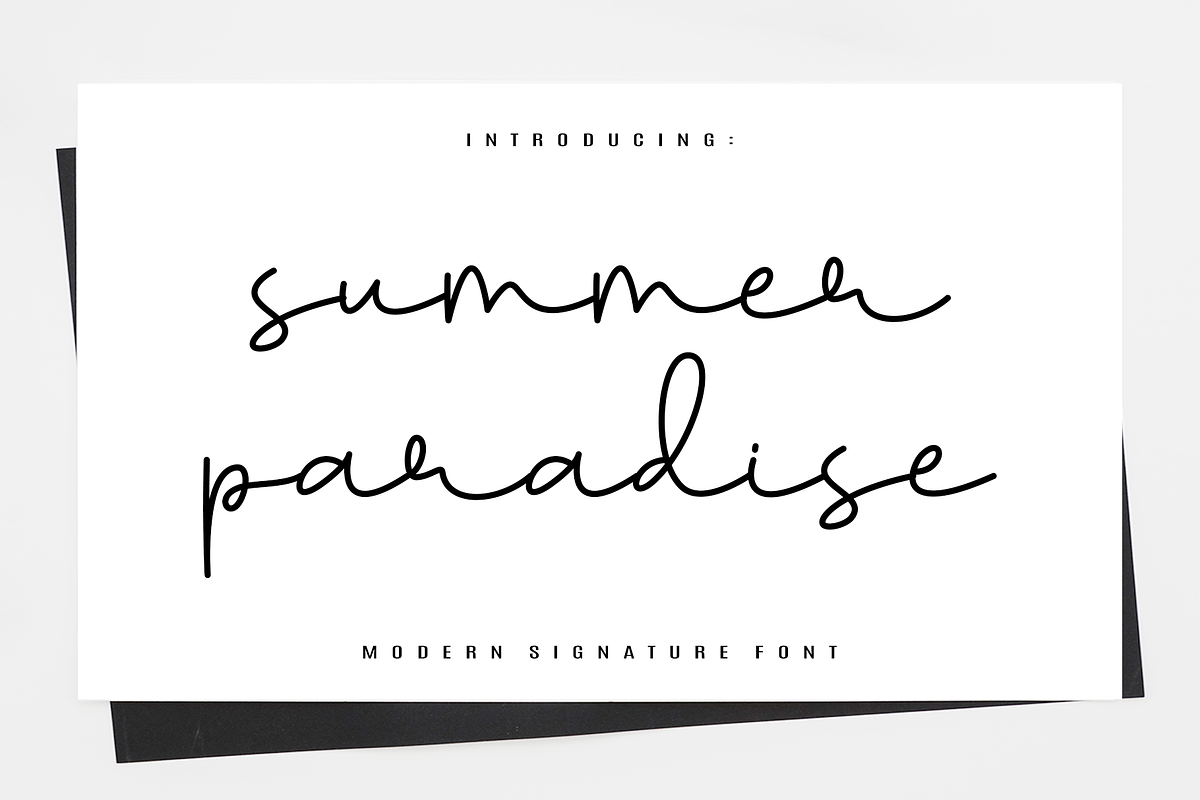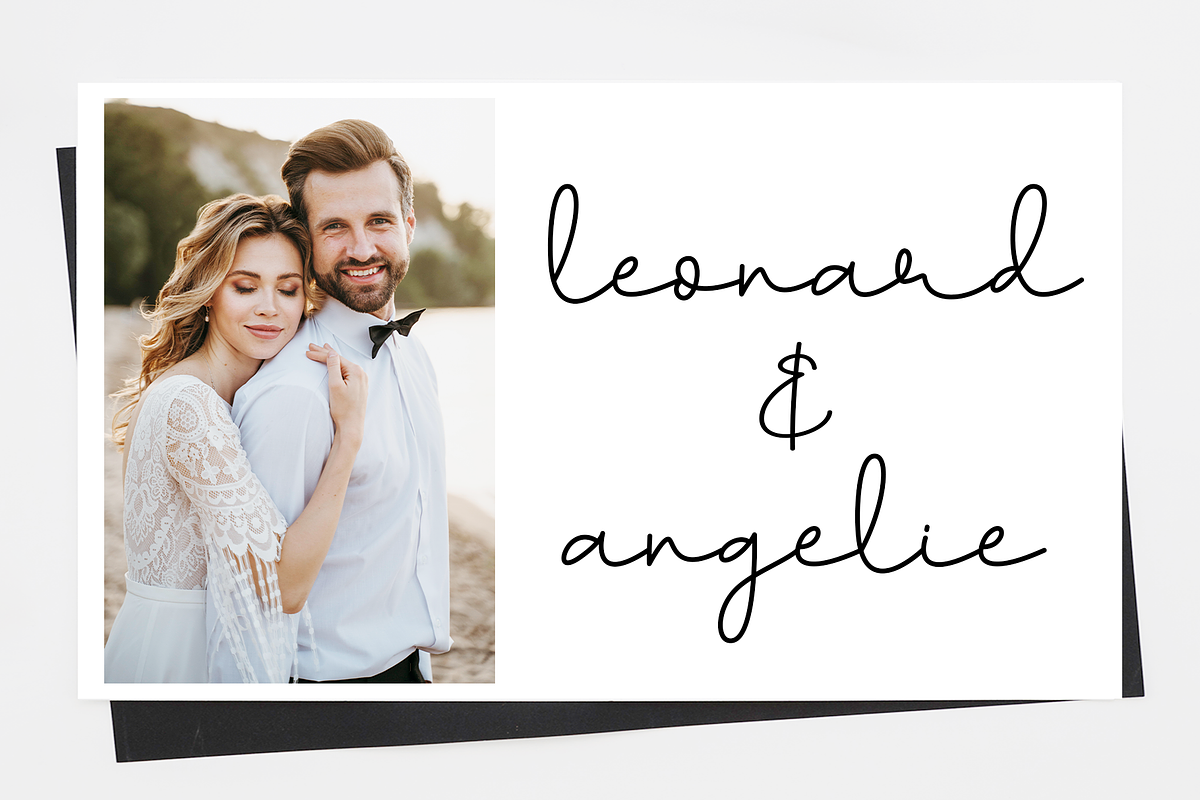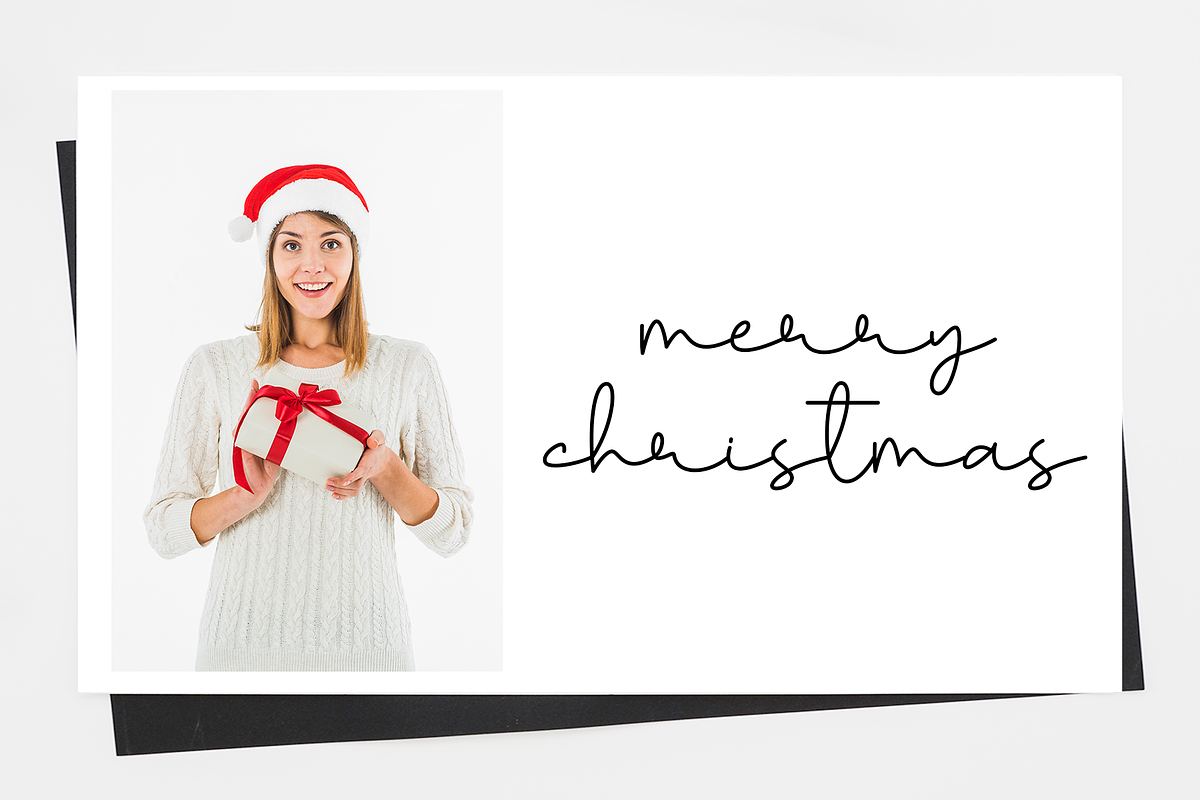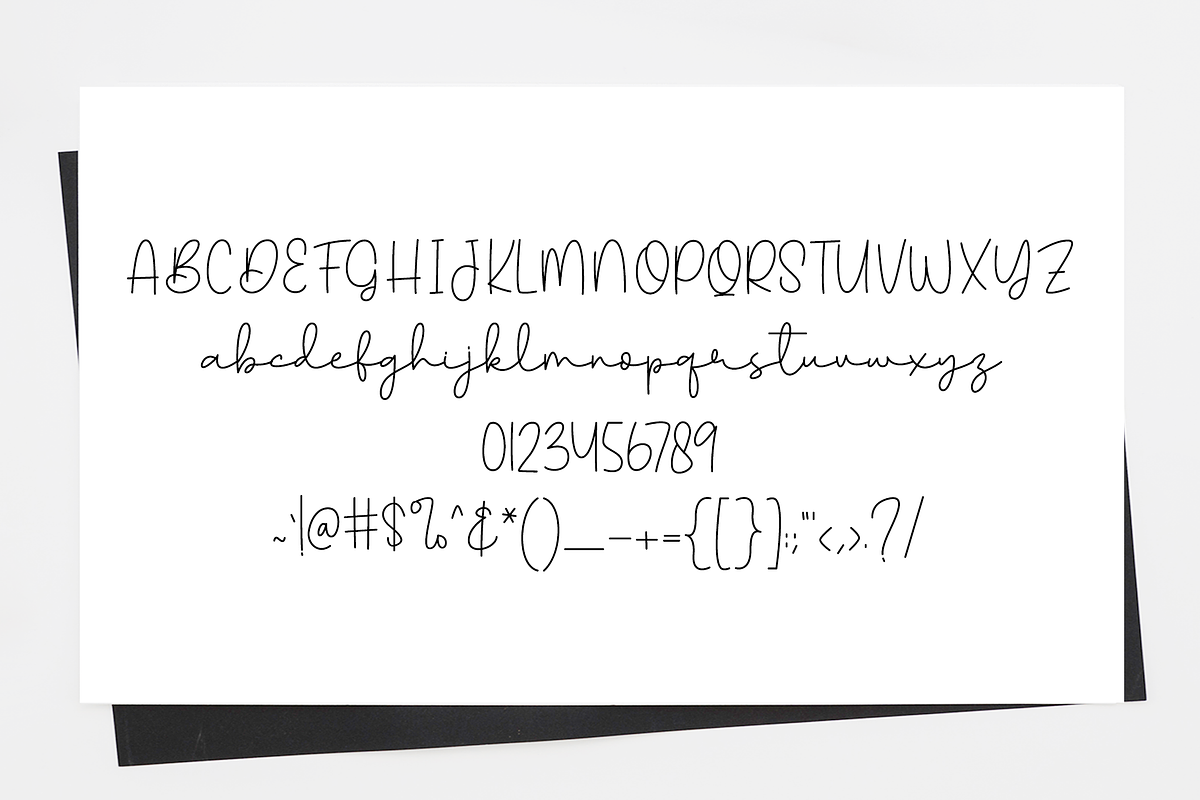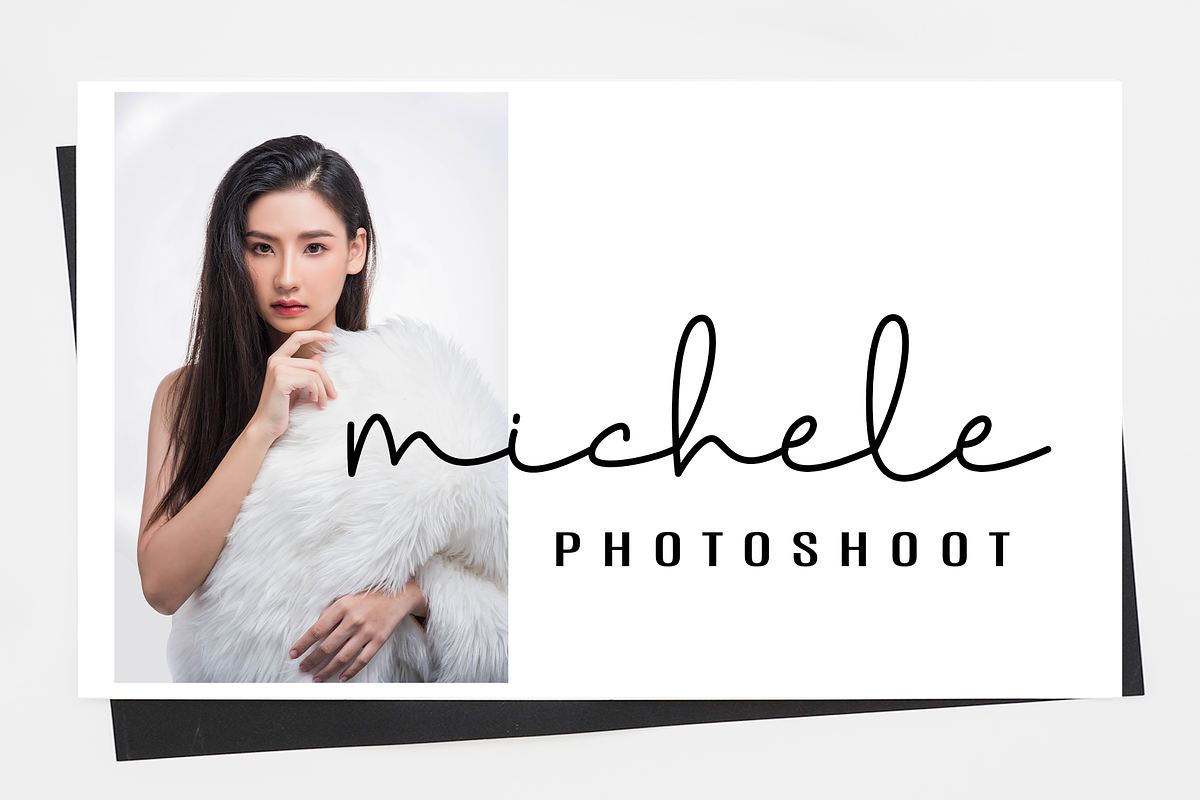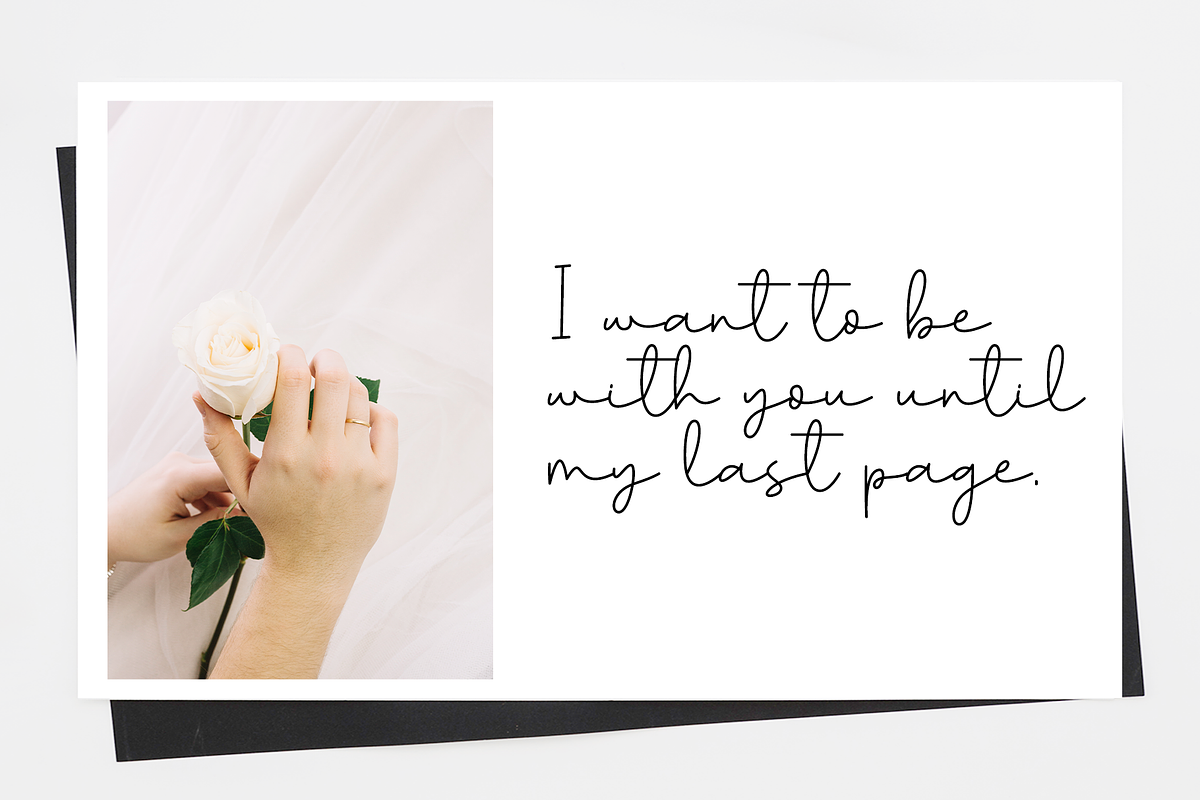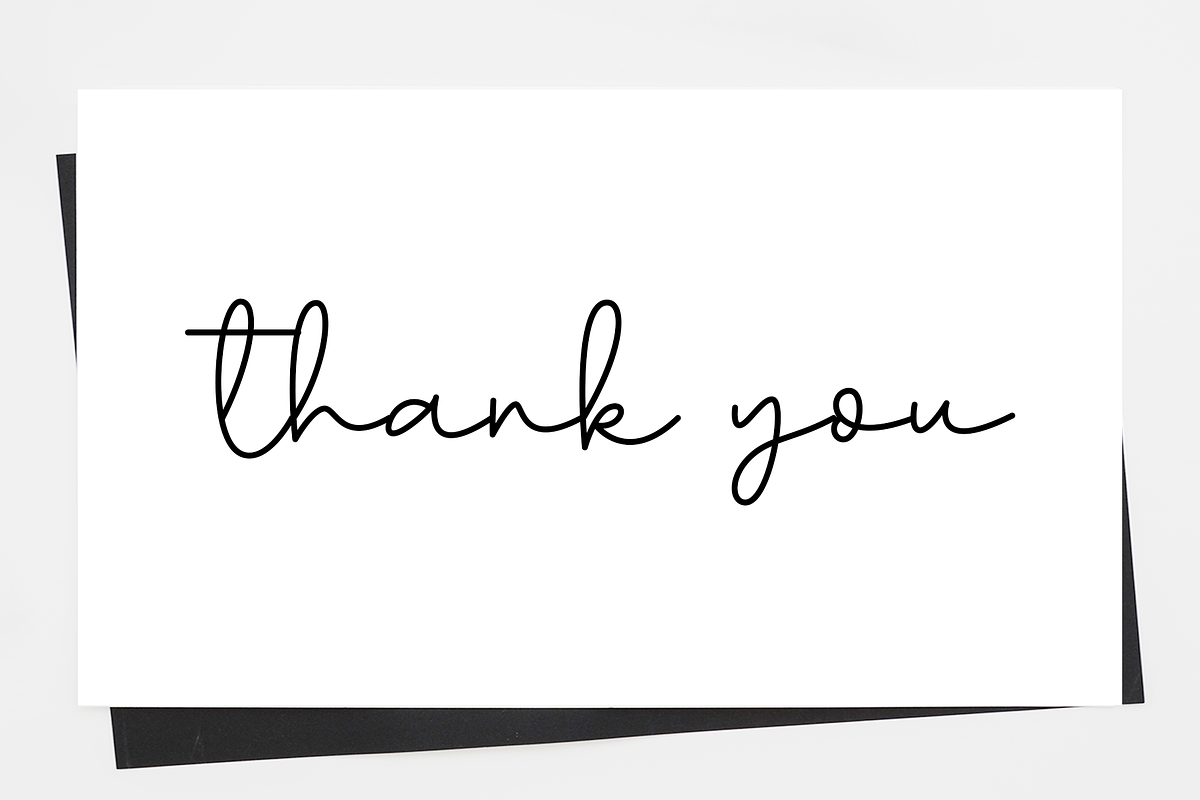
Summer Paradise
Summer Paradise is a natural hand-drawn font that depicts simplicity with full awareness encompassing assertiveness, strength and authenticity!